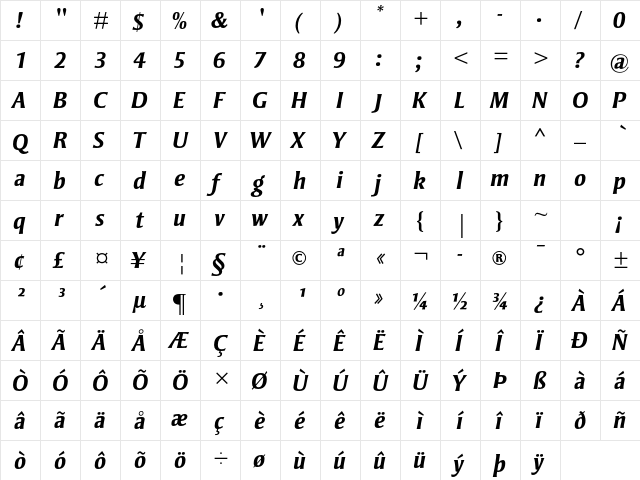
Strayhorn MT Std Bold Italic Font Preview
Strayhorn MT Std Bold Italic
Strayhorn MT Std Bold Italic Font Details
| Designer | Michael Harvey |
Design Context for Strayhorn MT Std Typeface
Strayhorn MT Std is a composed and adaptable typeface that performs quietly and consistently across a wide range of design contexts. Its italic angle brings a sense of urgency and motion to the letterforms. The heavy weight commands attention and anchors typographic hierarchies.
Pro Tip: Use Strayhorn MT Std for emphasis, pull quotes, and subheadings where its slanted energy can add rhythm to the layout.